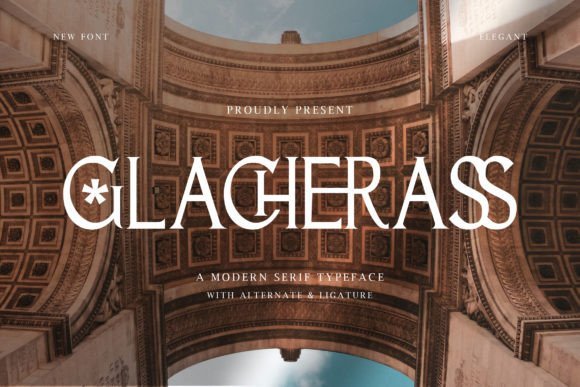
The Perfect Blend: Discovering the Elegance of Glacherass Font
Enter Glacherass Font, a modern serif that seamlessly blends traditional influences with a contemporary aesthetic. Crafted with elegance and versatility in mind, this font is designed to effortlessly match a wide range of projects, from editorial and advertising to packaging and branding. Whether you’re a seasoned designer or just starting out, Glacherass Font offers the perfect balance of sophistication and adaptability to take your designs to the next level.
- Unique Characteristic: Glacherass features a unique blend of modern and vintage elements, with intricate details and ornaments, making it suitable for various design applications, including logos, branding, and typography-based art.
Glacherass Font Review
Overall, I had a mixed experience with the Glacherass font. Here’s a breakdown of what works well and what doesn’t:
- Unique aesthetic: The Glacherass font has a distinct, quirky feel that can add some visual interest to your designs.
- Highly customizable: The font comes with a wide range of styles and weights, making it easy to experiment with different looks.
- Good for creative projects: The Glacherass font is well-suited for projects that require a more artistic or hand-drawn feel, such as infographics, posters, or advertisements.
- Limited legibility: The Glacherass font can be difficult to read, especially at smaller font sizes or in body text.
- Not ideal for long blocks of text: The font’s unique style can make it challenging to read large amounts of text, which may not be suitable for articles, books, or other long-form content.
The Glacherass font is a fun, experimental option that’s perfect for creative projects that require a unique look. However, its limitations make it less suitable for more traditional or formal designs. If you’re looking for a font that’s bold and eye-catching, Glacherass might be a good choice. But if you need a font that’s highly legible and versatile, you may want to look elsewhere.
To get the most out of Glacherass Font, experiment with different font sizes, colors, and combinations to create unique and eye-catching designs. Use it for headings, titles, and body text to add a touch of elegance and sophistication to your projects.
Glacherass Font is ideal for use in creative projects, such as brochures, flyers, and posters. It’s also perfect for branding and logo design, as it adds a touch of luxury and sophistication to any design.